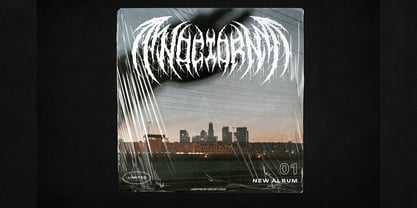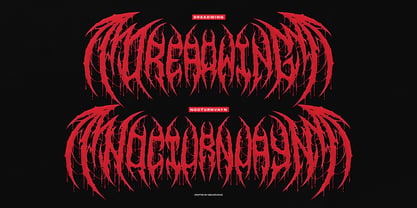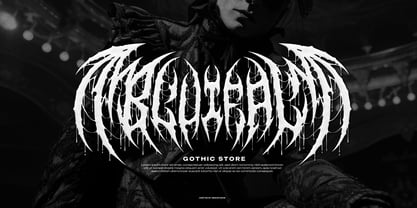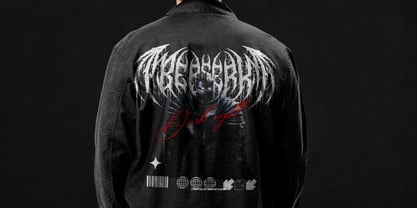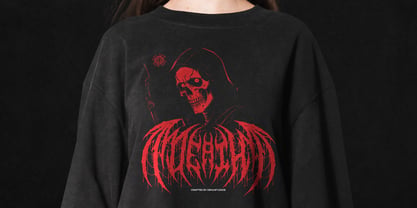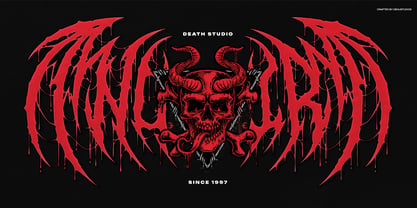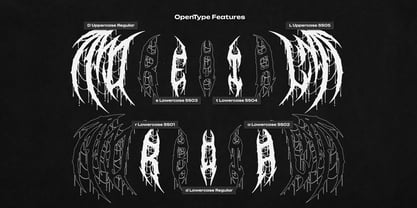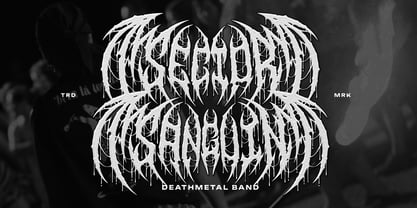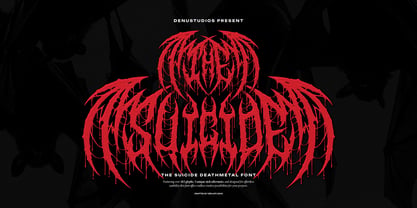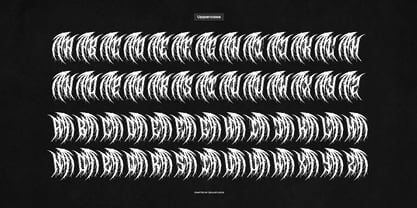
The Suicide
Die Schriftfamilie The Suicide wurde von Dede Nugraha entworfen und von Denustudio veröffentlicht. The Suicide enthält 1 Stile. Mehr über diese Familie
The Suicide | Death Metal Font, from Denustudios, suitable for any projects such as: logos, branding projects, homeware designs, product packaging, mugs, quotes, posters, shopping bags, t-shirts, book covers, name card, invitation cards, greeting cards, label, photography, watermark, special events, and all your other lovely projects that need Death Metal Font a taste.
• Alternate and Ligature